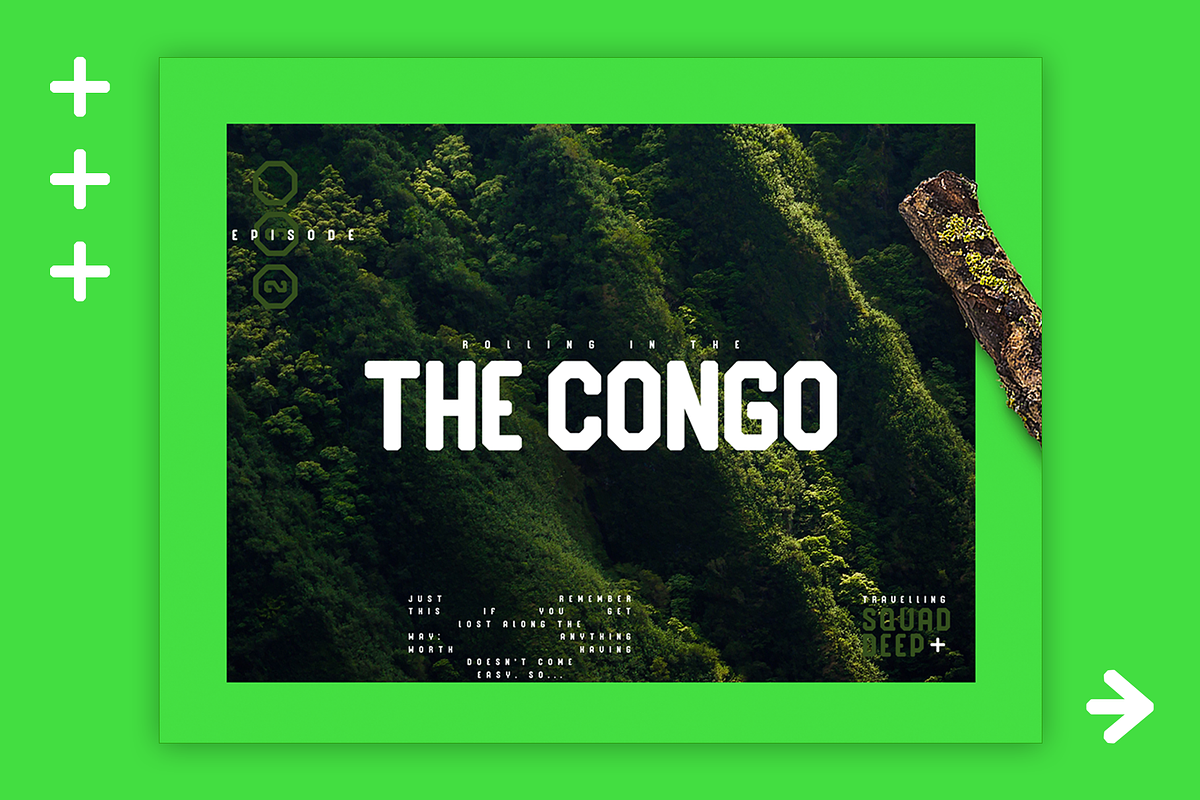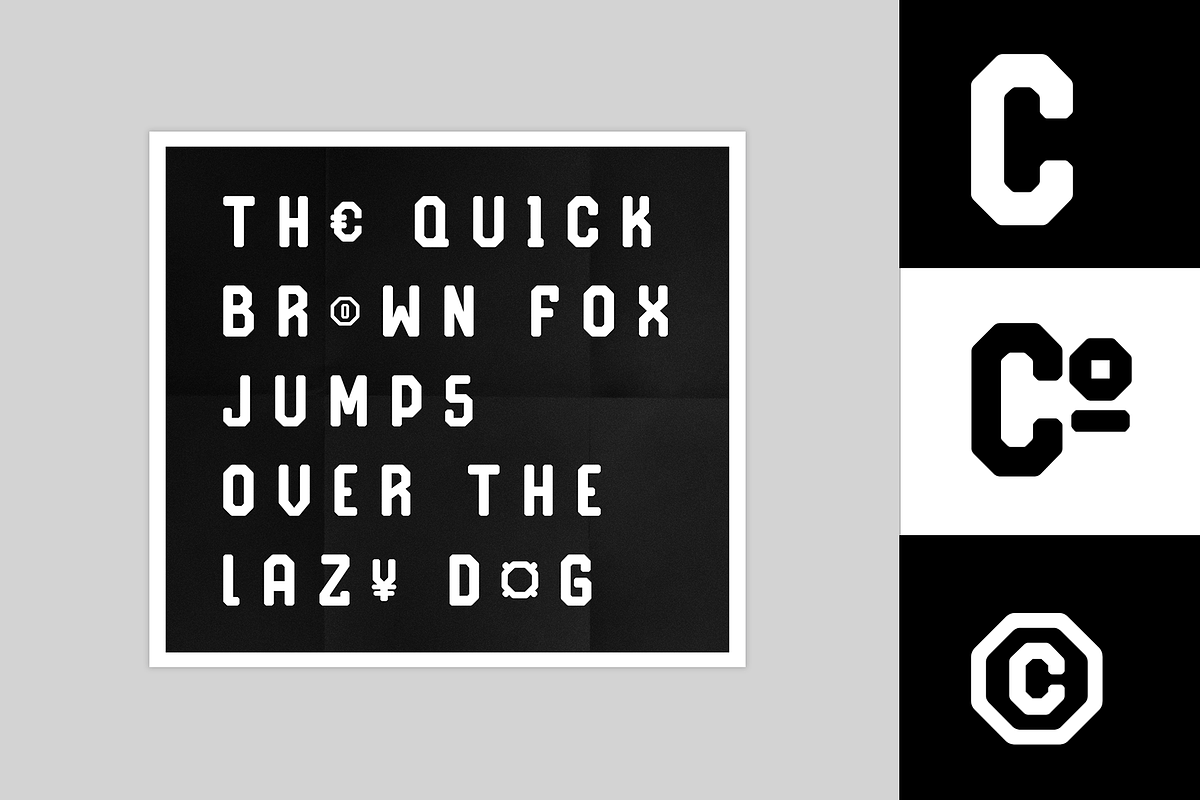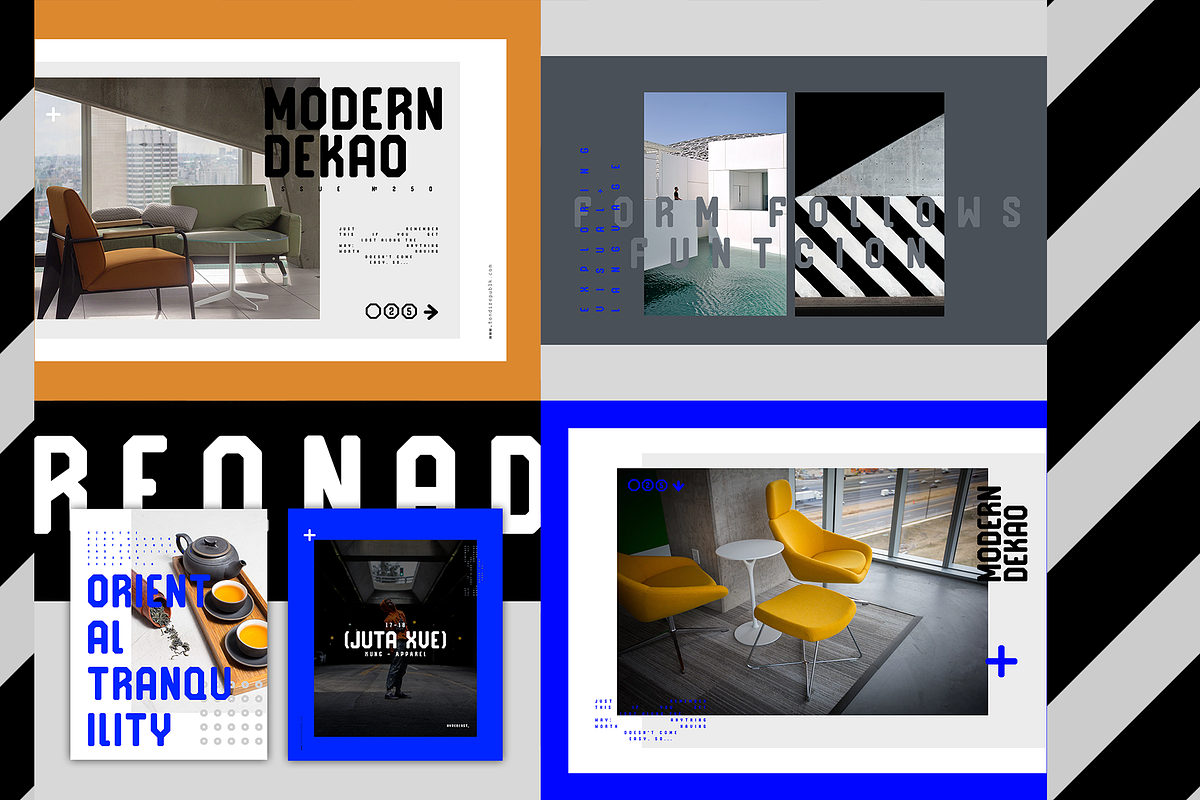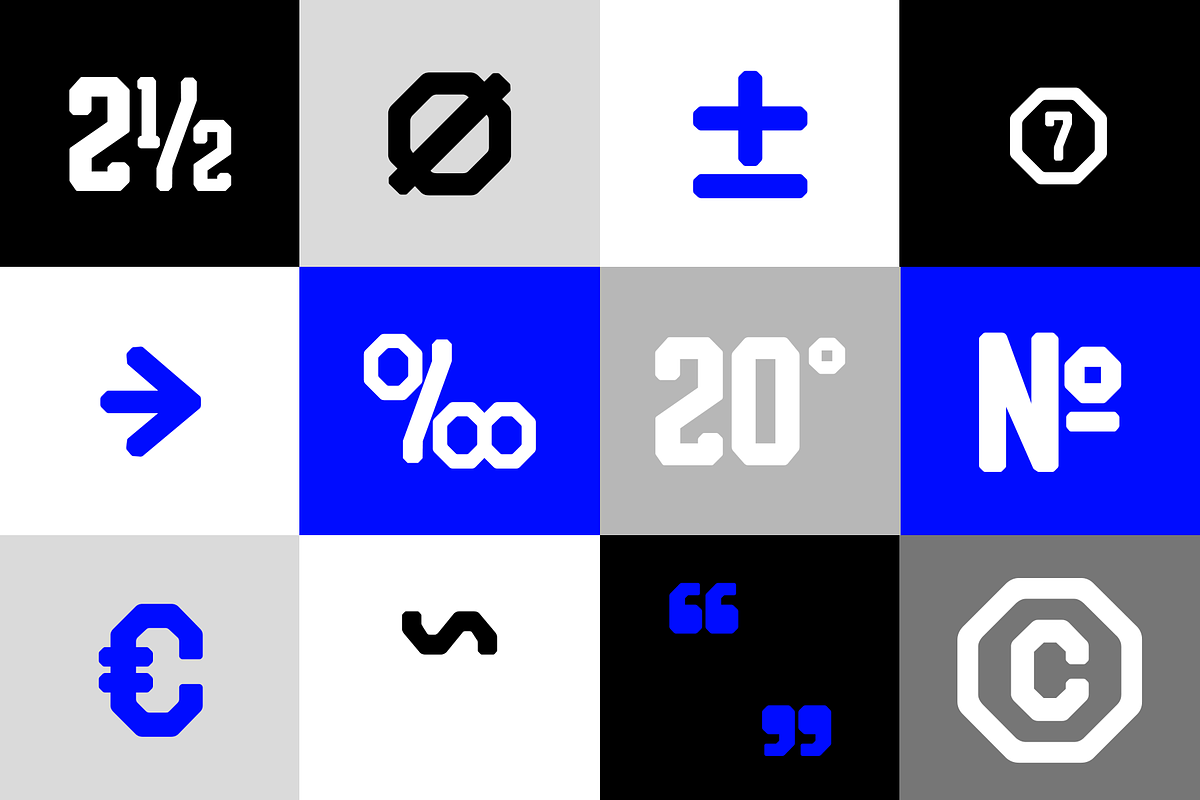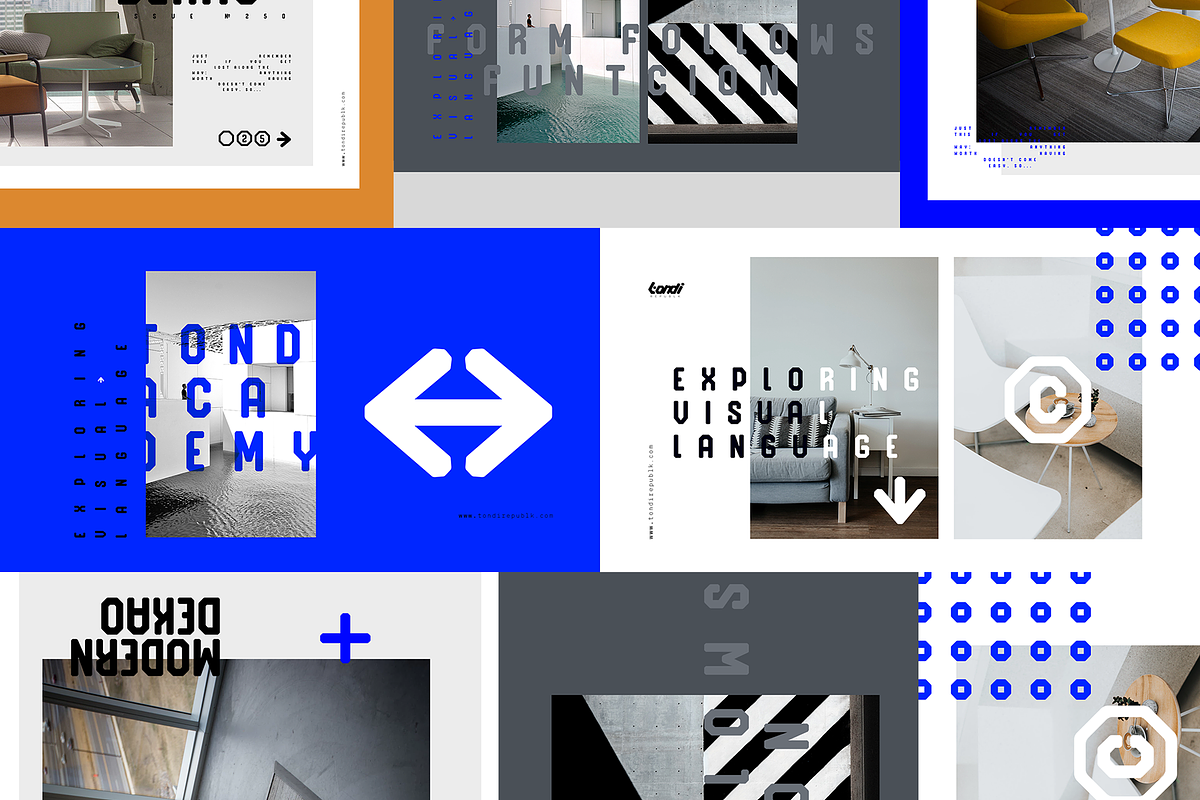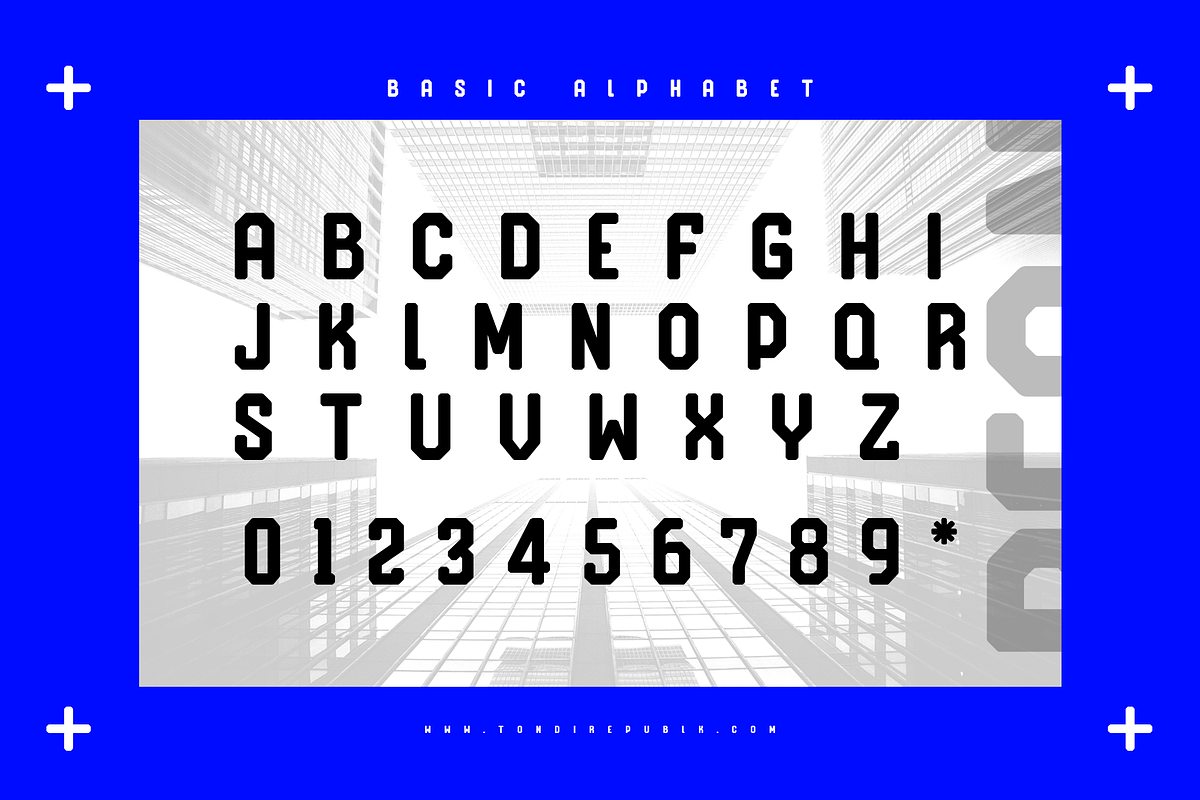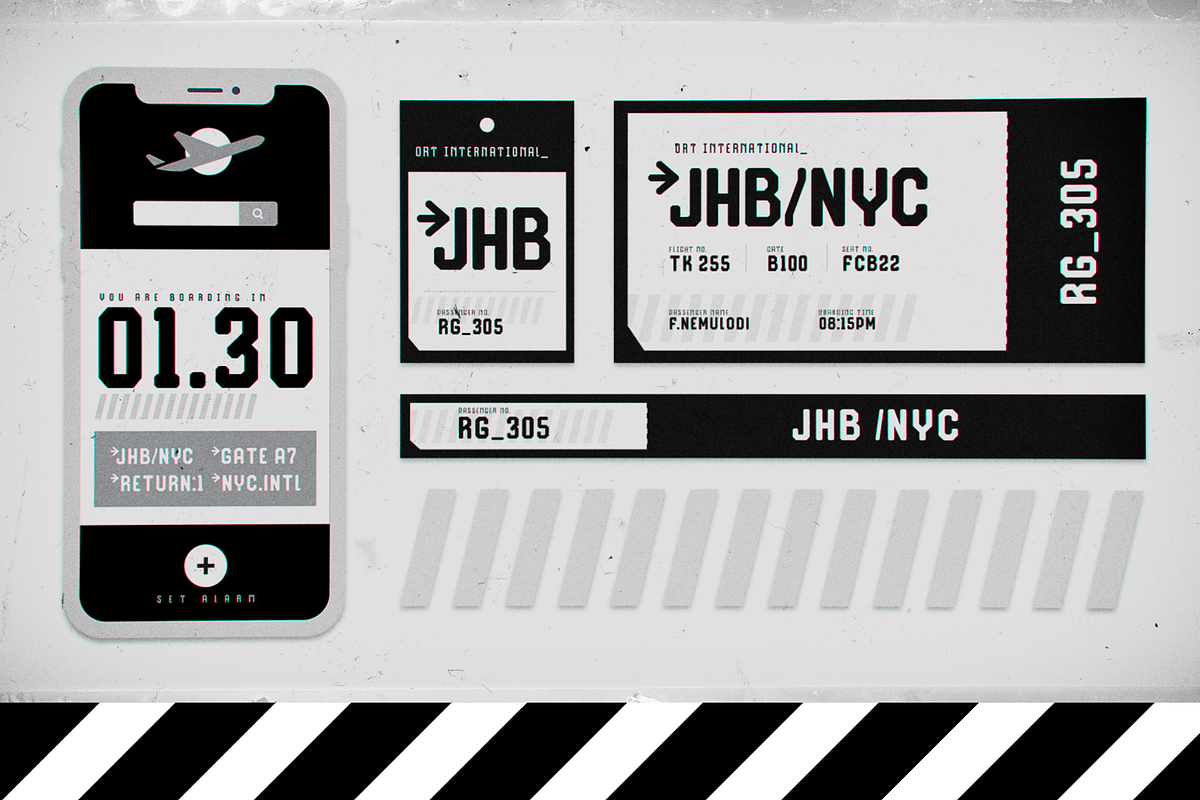
Reqnad Geoemtrik Font
Reqnad Geometrik is a typeface inspired by geometrically inclined modern architecture and industrial design. The typeface has a geometric aesthetic with a rounded finish and octagonal angles. This font has been in the works for the 2 years and has spawned into a multi-styled type system with various iterations of the typeface.
This release features the original typeface design, with major geometric and aesthetic improvements. Other iterations of this typeface will be launched sequentially from here on.
Reqnad Geometrik is great for use in minimalistic layouts, sports designs and bold headlines. Visit to see some case studies created in exploration of the typeface.